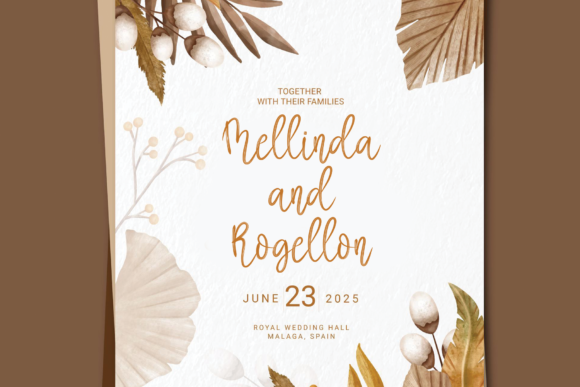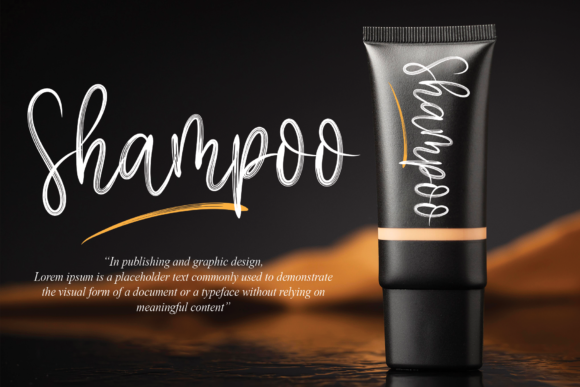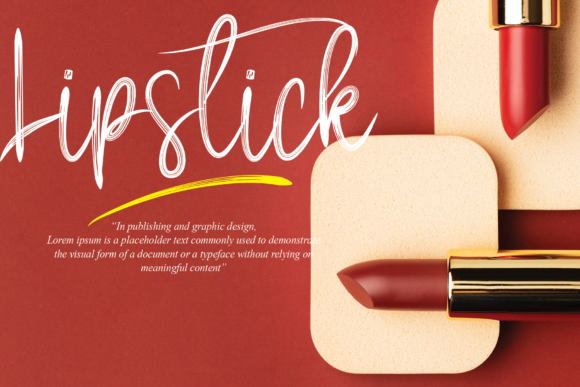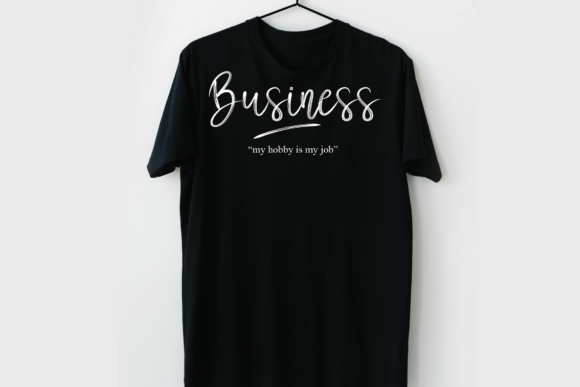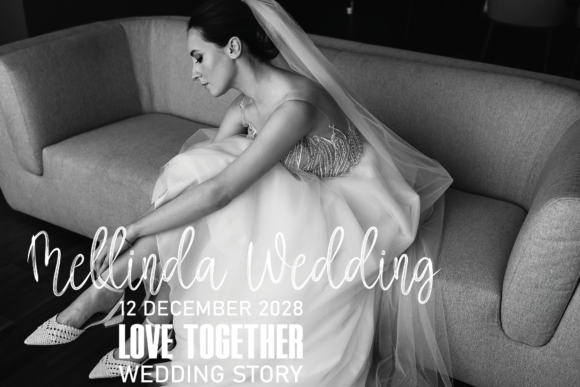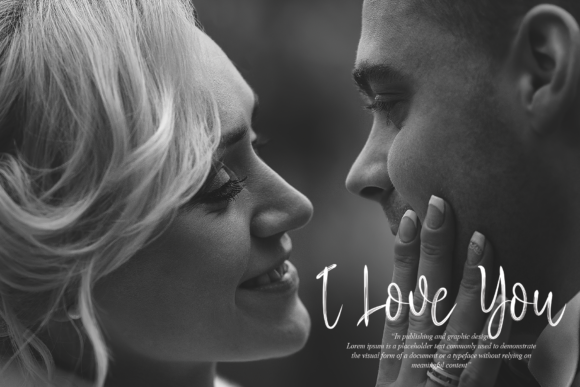
Introduction to Hamster Signature Font
As you sit at your desk, surrounded by scattered sketches and forgotten design ideas, you know that moment of creative clarity is just around the corner. The idea that will elevate your project from ordinary to extraordinary is hiding in plain sight, waiting to be discovered. And when it strikes, you’ll need a font that can keep up with its beauty and uniqueness. That’s where the Hamster Signature Font comes in – a stunning, handwritten font that will add a touch of luxury to any design project.
This high-quality design resource is more than just a pretty face; it’s a game-changer for designers looking to take their creative projects to the next level. With its transparent background and free download option, it’s the perfect addition to any design arsenal. Whether you’re working on a personal project or a client-based design, the Hamster Signature Font is sure to leave a lasting impression.
Key Features of Hamster Signature Font
- Unique and playful design, perfect for creative projects and personal branding.
- High-quality font with transparent background, ideal for use on images and designs.
- Includes 20 different characters, including letters, numbers, and special symbols.
- Designed with a modern and whimsical touch, suitable for a variety of creative applications.
- Resolution: 300 DPI, ensuring crisp and clear display on various devices and mediums.
Honest Review: Hamster Signature Font
I recently came across the Hamster Signature Font and was excited to give it a try. As a designer, I’m always on the lookout for high-quality design resources to enhance my creative projects. The free download of this font was a great find, and I was happy to see that it includes a transparent background, making it easy to work with.
- ✨ The font itself is quite unique and has a cute, playful feel to it. I think it would work well for a children’s book or a fun branding project.
- ✨ The font is also quite versatile and can be used for a variety of design applications, from headings to body text.
However, I did encounter a few limitations. The font is not as extensive as some other fonts I’ve worked with, and the character set is relatively small. This may be a issue for more complex design projects.
- ⚠️ Limited character set and not as extensive as other fonts
Overall, I think the Hamster Signature Font is a great addition to any designer’s toolkit. It’s a fun and creative font that’s perfect for a variety of design projects. With a little creativity, I think it could be a great design resource for anyone looking to add some personality to their work.
The Hamster Signature Font is a unique design resource that can elevate your creative project to the next level. This free download offers a high-quality, transparent background that can be easily integrated into various design tools.
1. Use it sparingly to add a touch of whimsy to your design.
2. Pair it with other fonts to create a unique visual hierarchy.